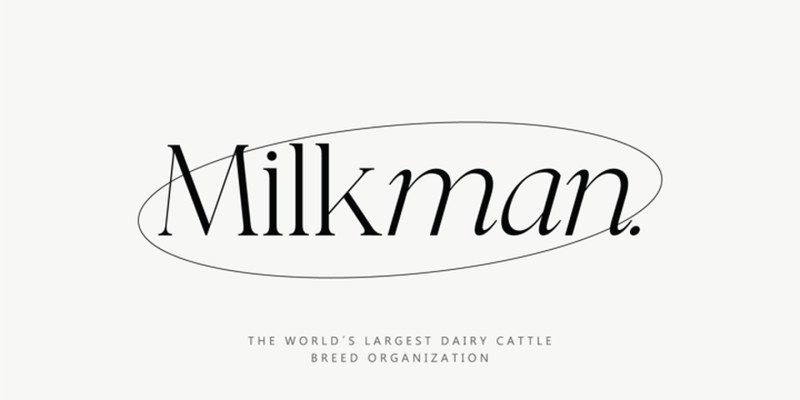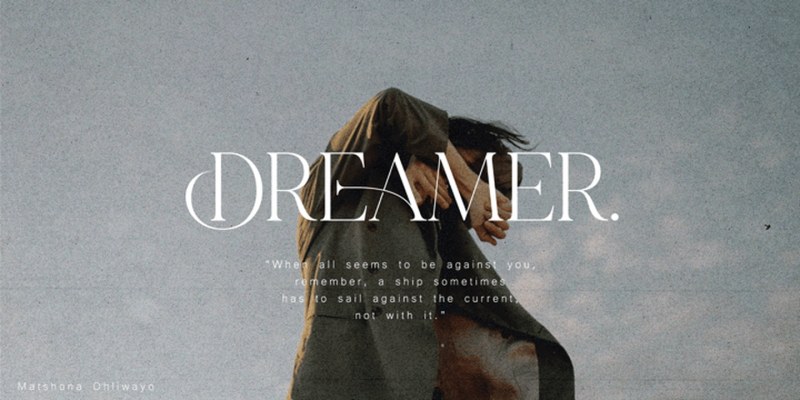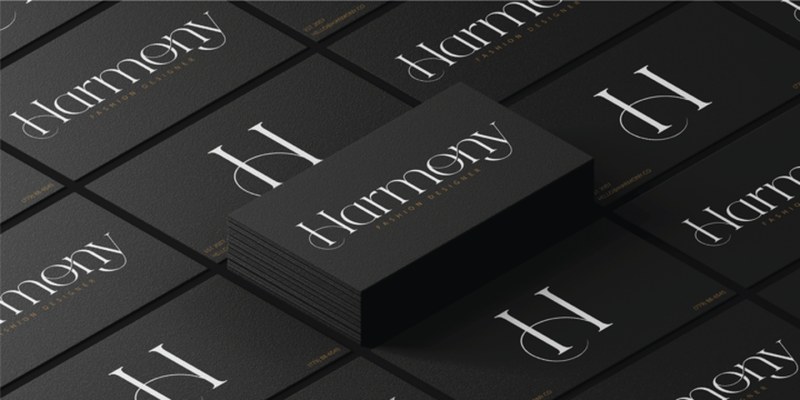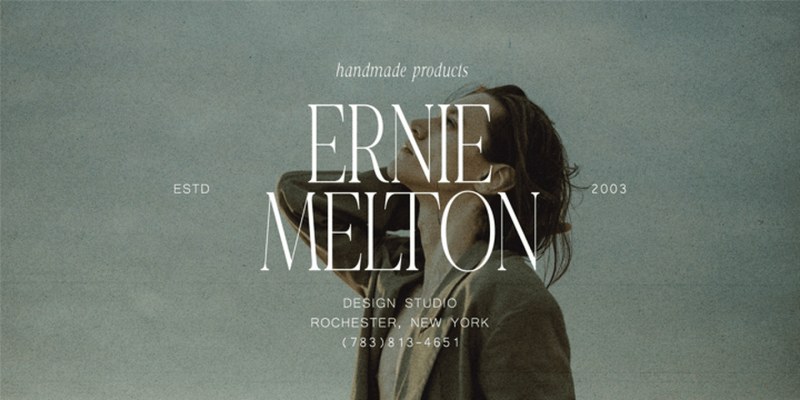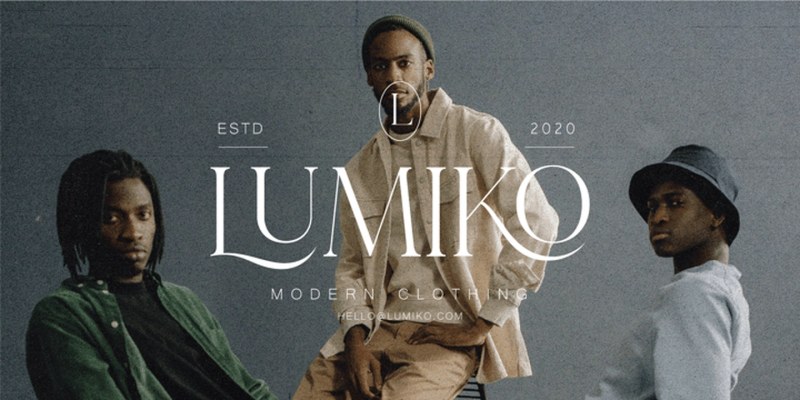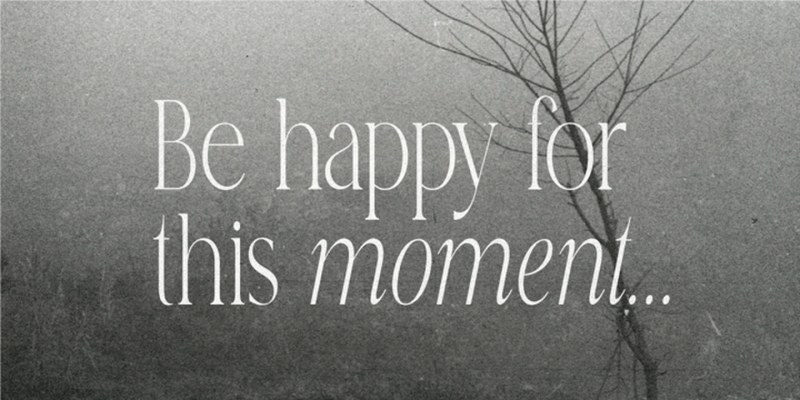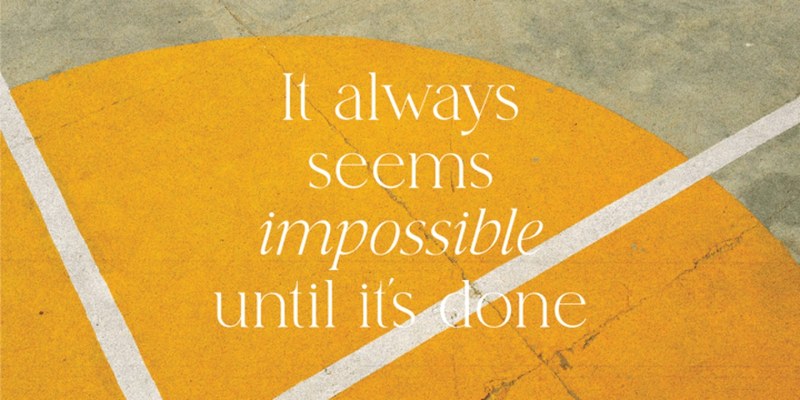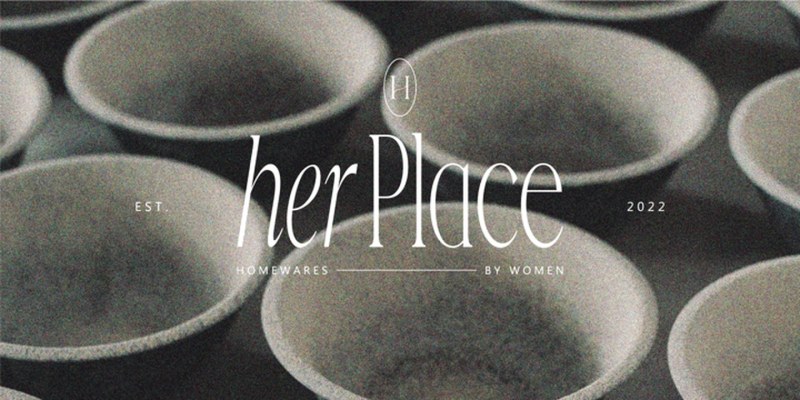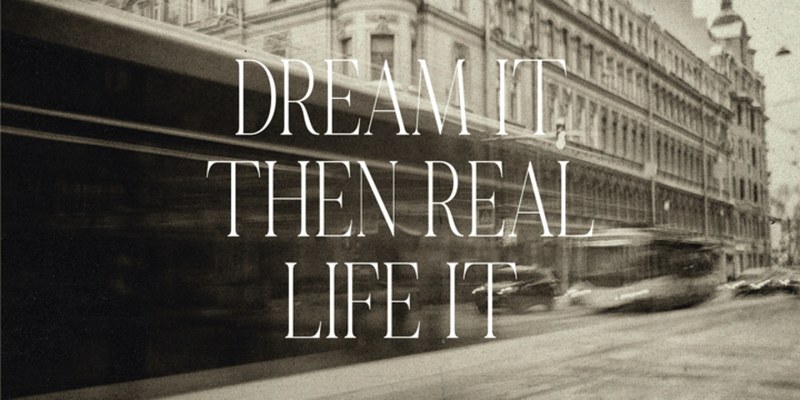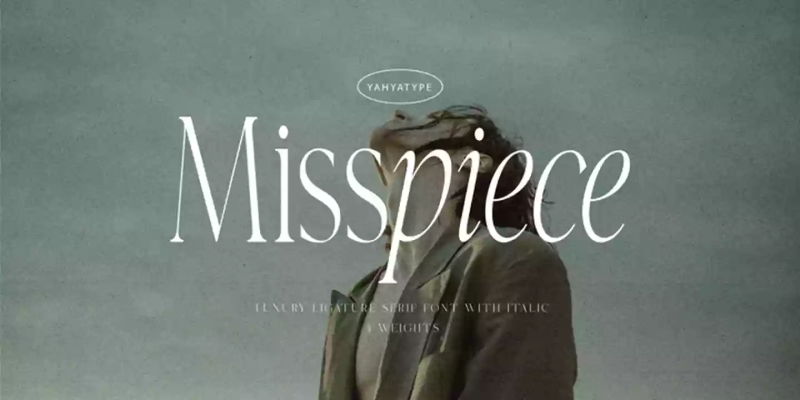
Misspiece Font Family
Meet Misspiece, a luxury ligature serif font with italic. Misspiece combines a vintage look with a modern flair to add more elegance to your project. This font can be us…
Meet Misspiece, a luxury ligature serif font with italic. Misspiece combines a vintage look with a modern flair to add more elegance to your project. This font can be used in high-end branding, logo designs, magazines, product packaging & invitations, wedding designs, social media posts, advertisements, labels, photography, and watermark…
Where Misspiece Font Family works best
Misspiece Font Family gives long-form text a classic, trustworthy rhythm — ideal for magazine spreads, annual reports and book interiors.
Pair Misspiece Font Family with generous letter-spacing for wordmarks in fashion, hospitality, wine and jewellery branding.
Use Misspiece Font Family for slide titles in Keynote, PowerPoint or Google Slides to add authority without looking dated.
What is Misspiece Font Family good for?
Misspiece Font Family is a Serif Fonts typeface tagged Branding, Editorial, Elegant, Modern. It works well for headlines, logos, posters, social media graphics and branding projects that need a distinctive serif fonts look.